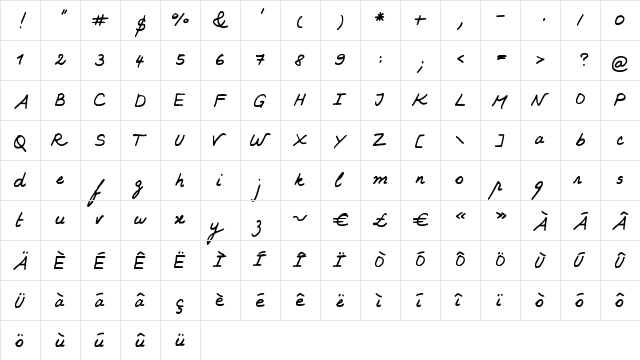
KARINE Regular
Design Context for KARINE Typeface
KARINE takes a measured approach to typography — its balanced proportions and neutral character make it a reliable workhorse for both digital and print work.